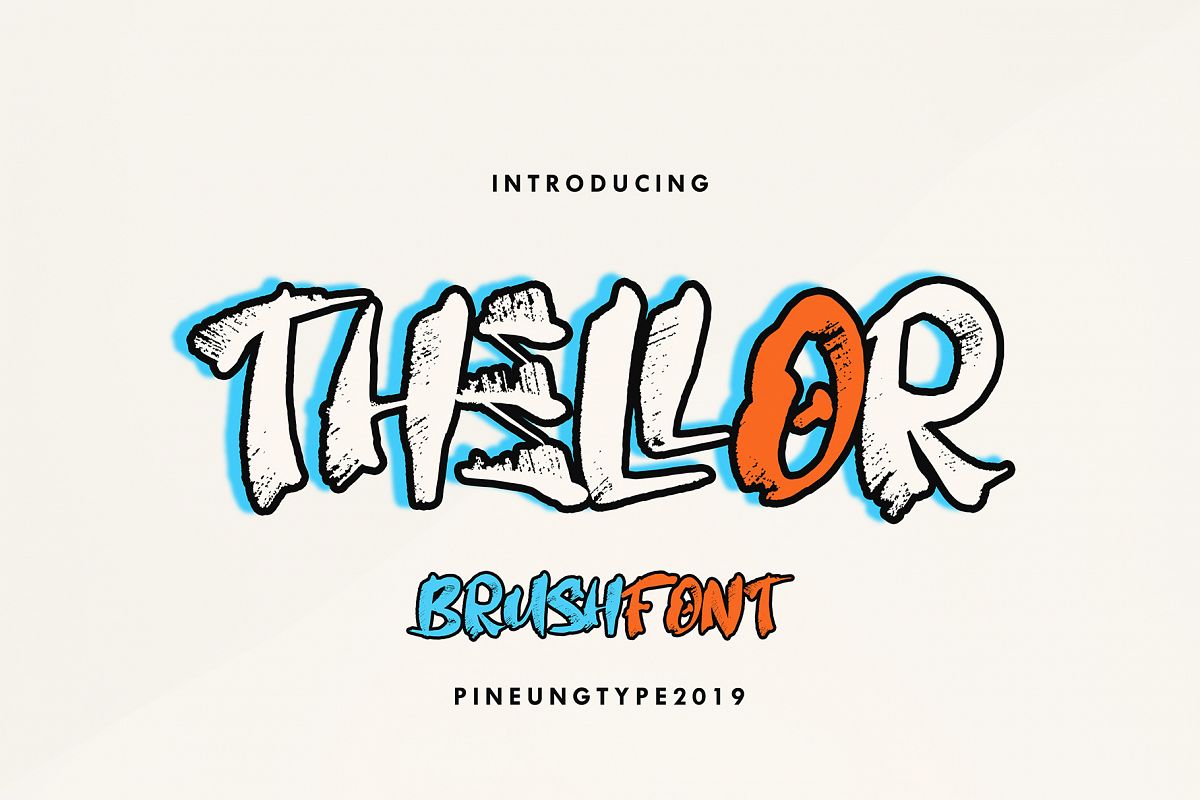
THELLOR
THELLOR brush font this font will perfect for many different project ex: quotes, logo, blog header, poster, banding, fashion, apparel, letter, invitation, stationery, etc...